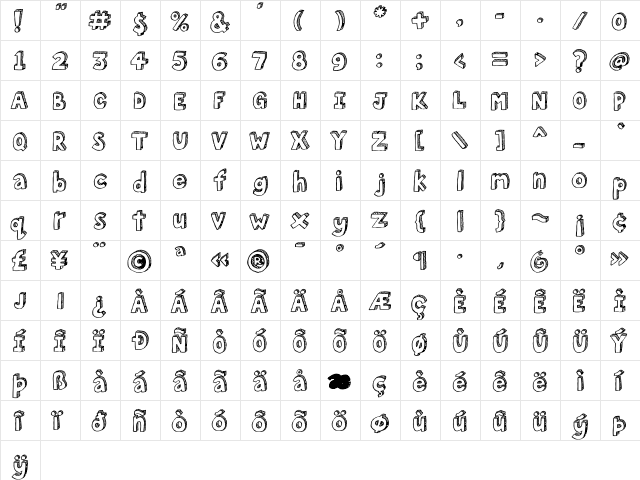
Bokka HalfShadow
Design Context for Bokka Typeface
Bokka brings ornamental detail and strong personality to headlines and identities, where visual impact matters more than quiet functionality.
Font Pairing: Pair with a clean neutral sans-serif for body copy to let Bokka's character lead without overwhelming the composition.
Pro Tip: Treat Bokka as the centrepiece of your typographic hierarchy. One strong heading set in a decorative face can carry an entire layout.